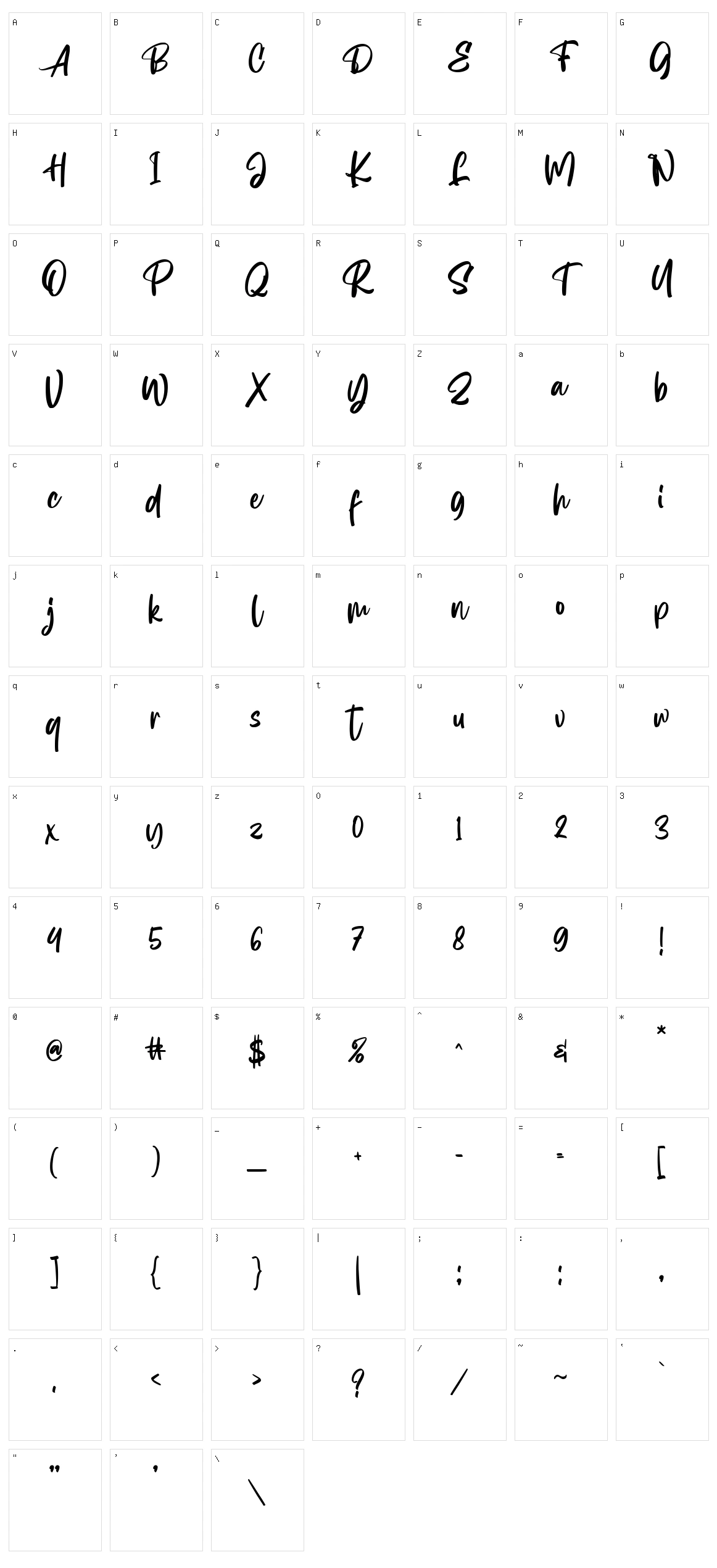
The free font Better Minds is carefully designed by Damarletter, showcasing a thoughtful balance of creativity and usability and falls under the Script font style. When you download the ZIP file, it contains only 199.19 KB of font files, making it lightweight and quick to download. Please review the license details below to understand permitted usage and distribution rights. If license information is not available, we recommend using this font for personal projects only or contacting the author directly for commercial usage permissions.